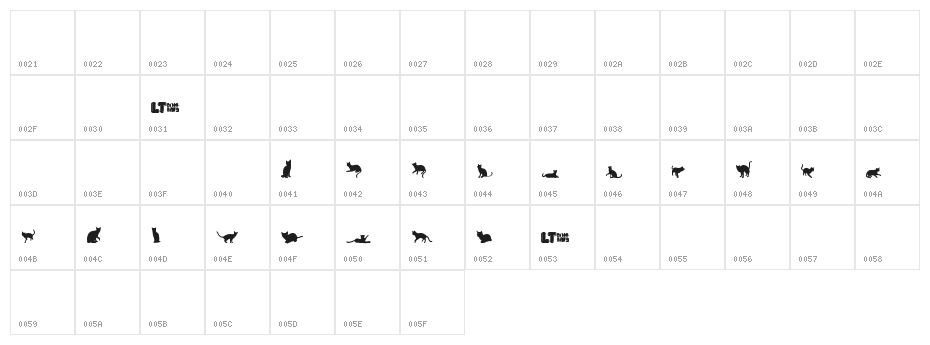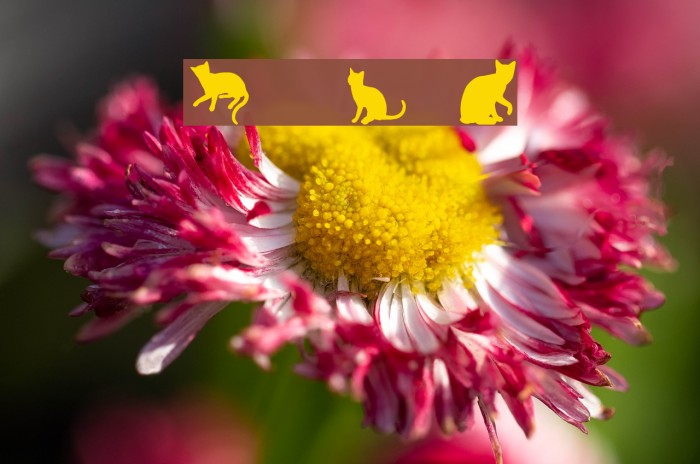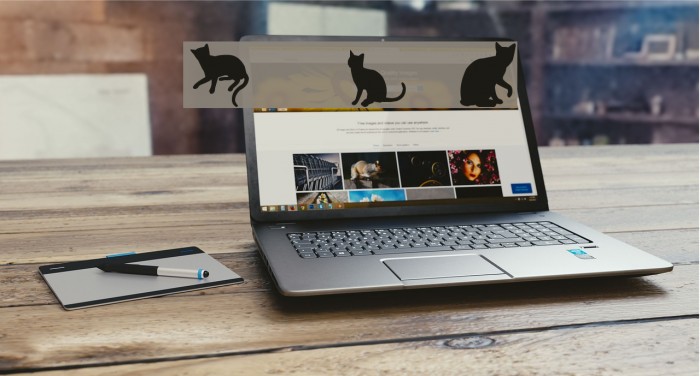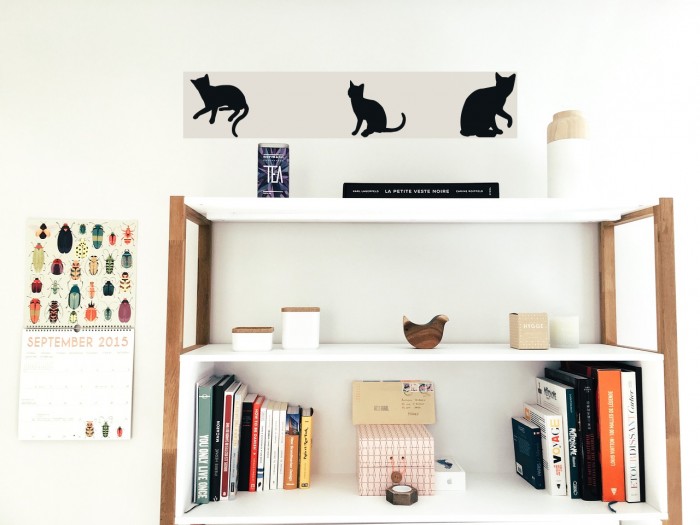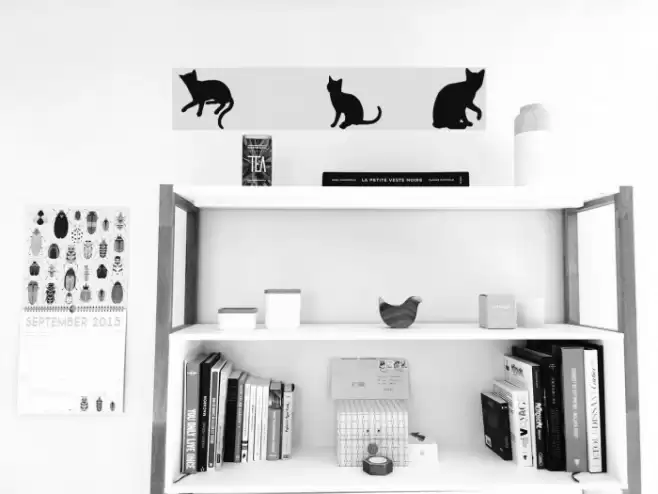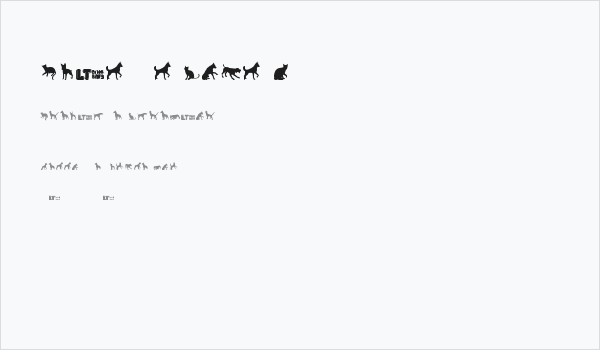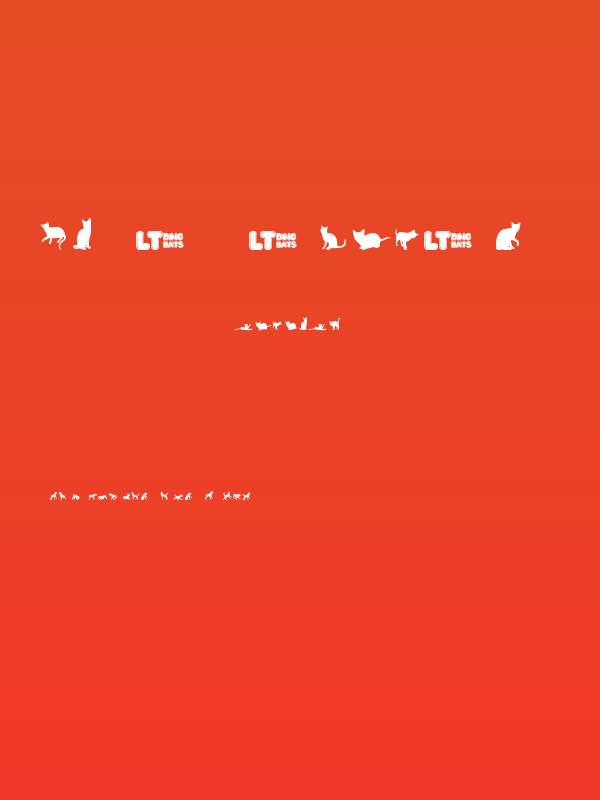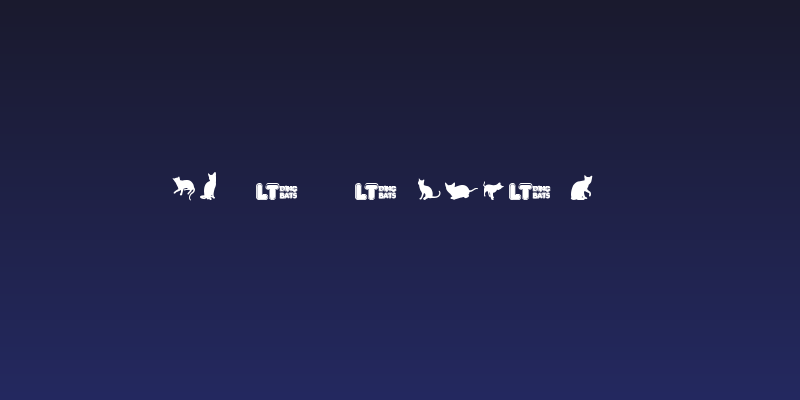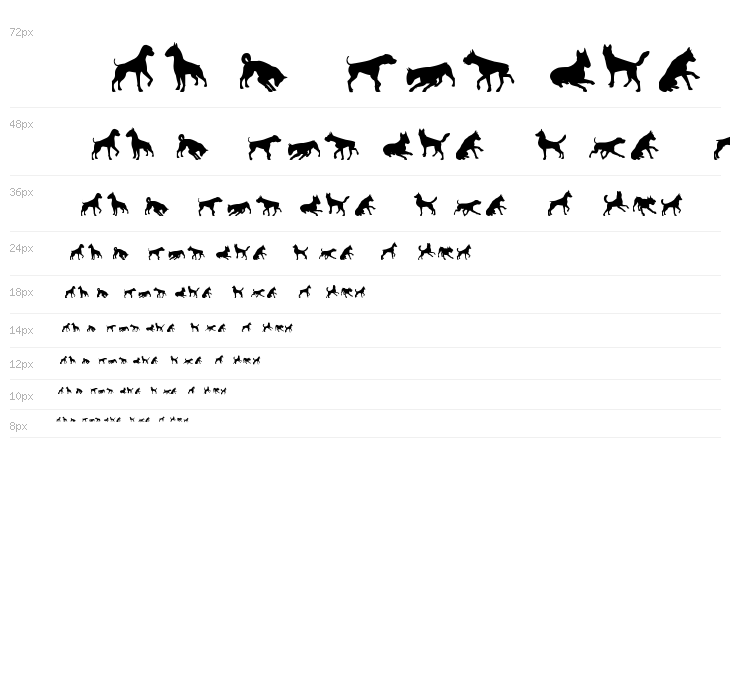
Cats vs Dogs LT Font
| Caso d'uso | Logos, Decorative elements, Themed graphics |
| Progetti proposti | Ideal for pet-themed designs, children's books, animal shelter promotions, and playful branding materials. |